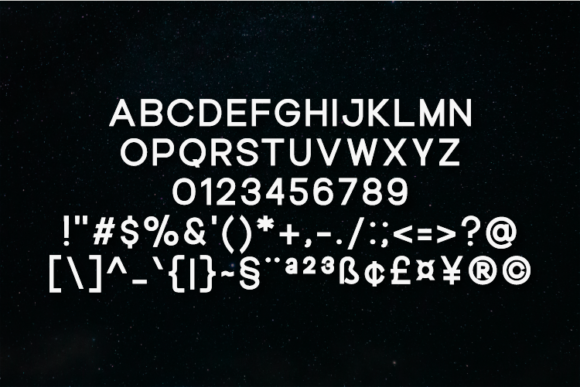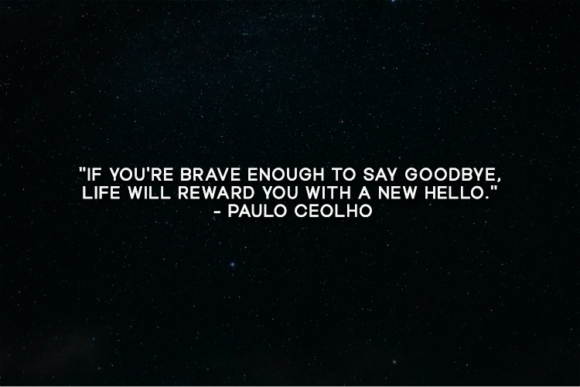
Introduction to Provenn Font
You’ve spent hours pouring over your latest creative project, tweaking every detail until it’s just right. But there’s one thing that’s been holding it back – the font. It’s not bad, but it’s not great either. That’s when you stumble upon the perfect solution: the Provenn Font.
With its minimal and neat sans serif design, the Provenn Font is the perfect addition to any creative project. Whether you’re working on a logo, brochure, or website, this high-quality font is sure to elevate your design and make it stand out from the crowd. And the best part? It’s a free download, making it an invaluable resource for designers of all levels.
Imagine being able to add a professional touch to your design with a single click – that’s what the Provenn Font can do for you. With its transparent background and sleek design, this font is the perfect way to give your creative project the boost it needs to shine.
Key Features of Provenn Font
- Transparent background option for versatile use
- Perfect for use in digital designs, including logos, graphics, and more
- Unique, stylish design that adds a touch of sophistication to any creative project
Honest Review: Provenn Font
I recently came across the Provenn Font, a design resource that has been making waves in the creative community. As a designer, I was eager to put it to the test and see if it lives up to the hype.
- High quality: The Provenn Font is incredibly crisp and clear, making it perfect for both digital and print projects.
- Transparent background: The font’s transparent background allows for seamless integration with any design, making it a great addition to any creative project.
- Limited font styles: While the Provenn Font is beautiful, it’s limited to a few styles, which may not be suitable for designers who require a wider range of options.
- Not ideal for complex typography: The font’s simplicity can make it difficult to use for complex typography projects, where multiple font styles and sizes are required.
Overall, I’m impressed with the Provenn Font’s quality and versatility. While it may not be the best option for every project, it’s an excellent addition to any designer’s toolkit.
- Use the font with a transparent background to create a clean and modern look.
- Combine Provenn Font with other high-quality design resources for a unique and creative look.
- Experiment with different font sizes and styles to add visual interest to your project.